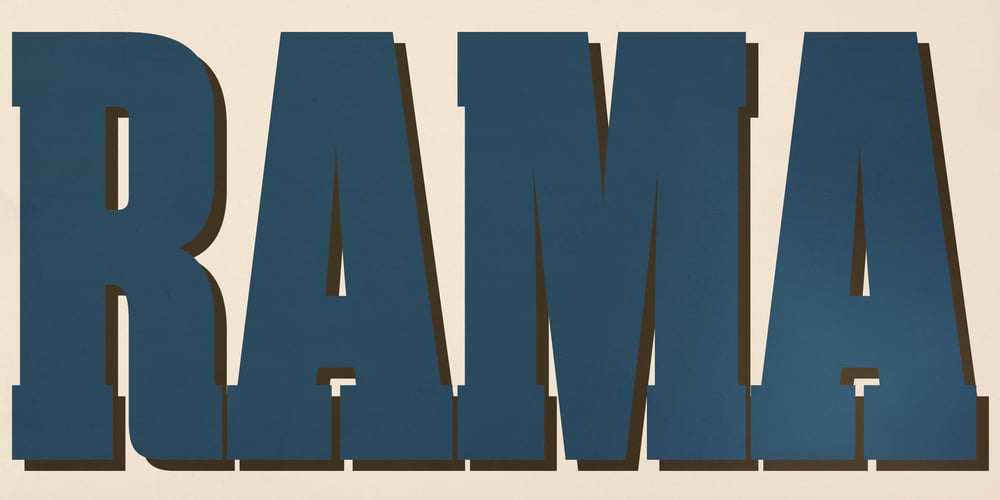
Rama Slab
Rama Slab font
Rama Slab Font Family was designed by Ryoichi Tsunekawa and published by Dharma Type. Rama Slab contains 18 styles and family package options. Rama Slab is an antique slab serif designed inspired by 1800s-style wood type. All glyphs have been designed carefully to be retro-looking to fill the viewer with nostalgia. This condensed font family with 18 styles is a great solution for posters, titles and anywhere you need impact. To complete your work perfectly, Gothic Extras family is ready for free. They include borders, ornaments and frames designed using vintage catalog of Hamilton in 1800s as a model. Incidentally, -r- has its alternative glyph that can be used with OpenType salt feature. Be sure to check out the sans serif style of this Rama series named Rama Gothic.